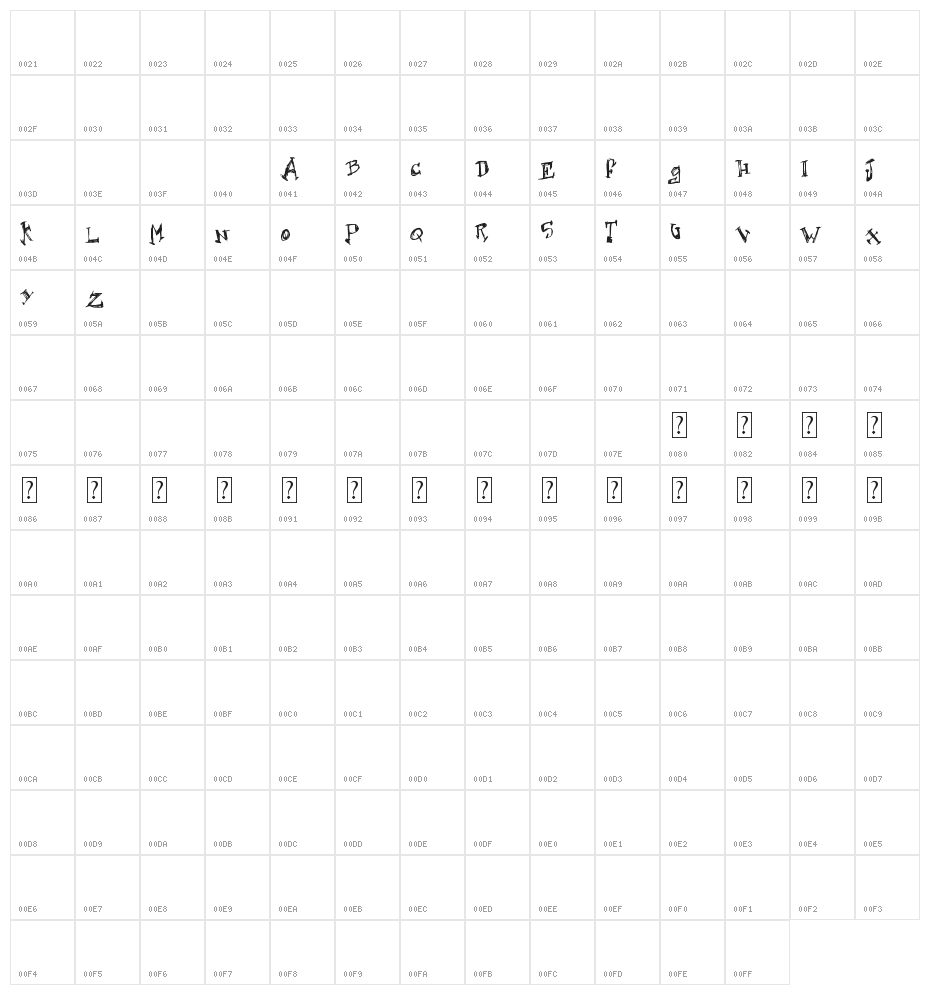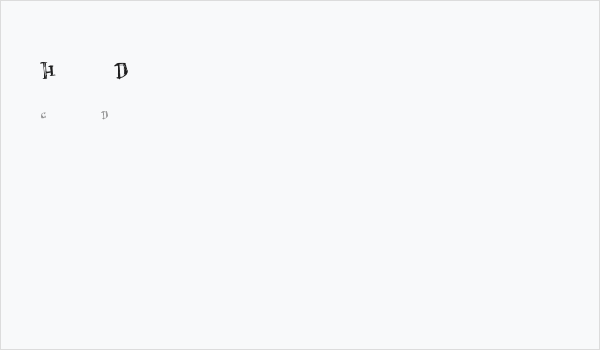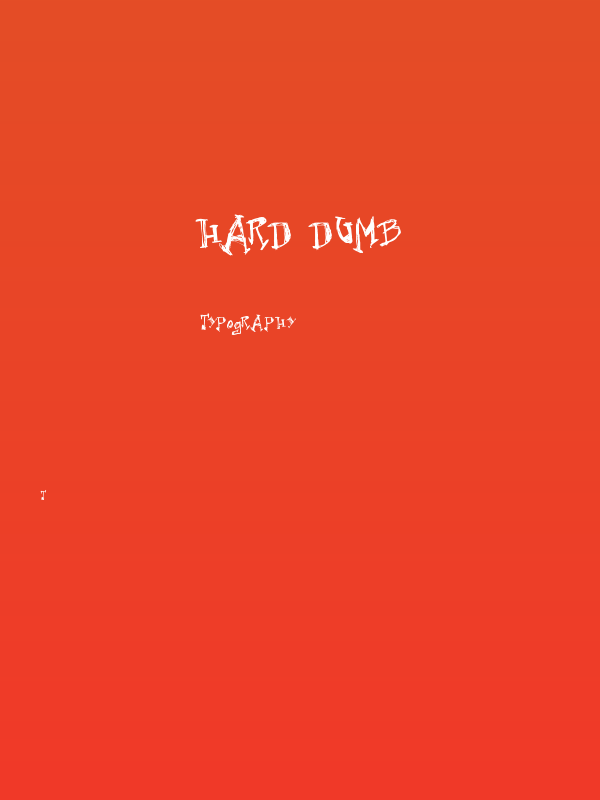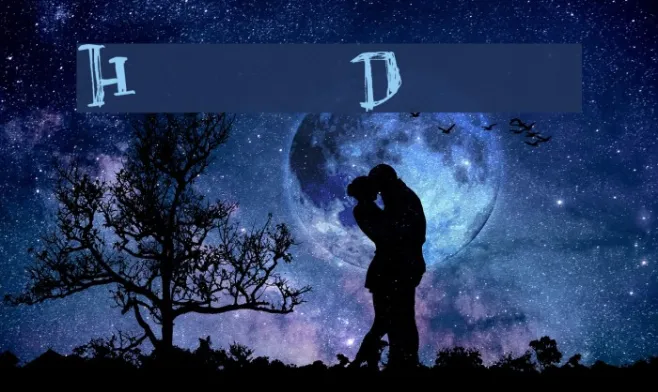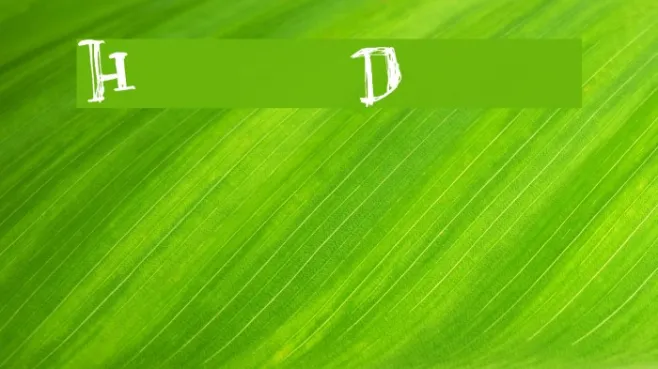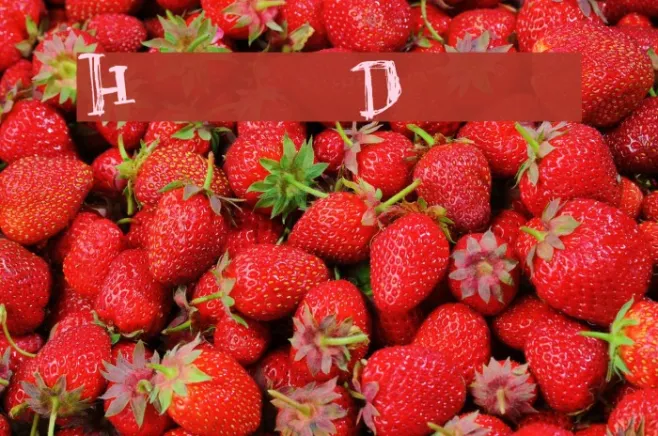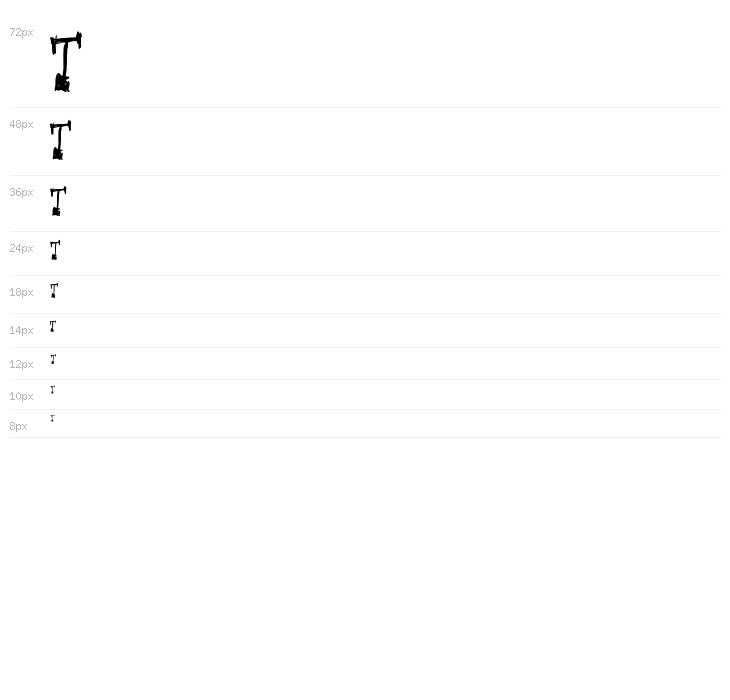
Hard Dumb Font
Hard Dumb Description
This font features a highly decorative and chaotic style, characterized by its jagged edges and irregular shapes. Each letter appears to be hand-drawn with a rough, sketch-like quality, giving it a rebellious and edgy appearance. The strokes are uneven, with varying thicknesses that create a sense of movement and energy. This font is reminiscent of graffiti or street art, making it ideal for projects that require a bold and unconventional look. Its unique design captures attention and conveys a sense of creativity and nonconformity.
| Proposed Projects | Ideal for album covers, street art posters, edgy branding, and creative event flyers. |